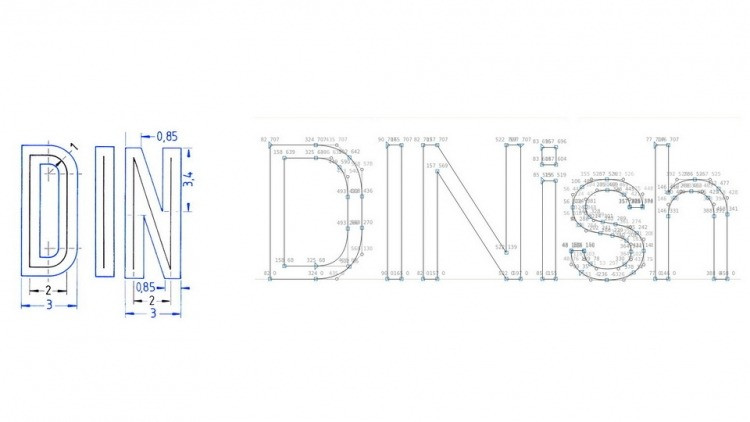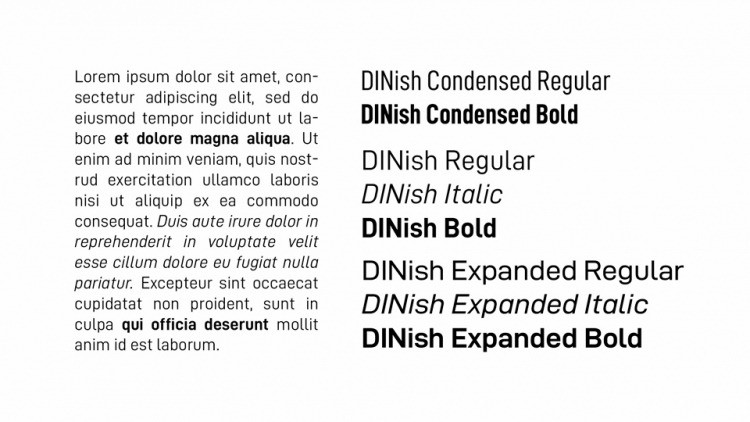
DINish sans serif Font
This is a high-contrast sans serif typeface that comes in multiple styles / weights, derived from Altinn-DIN, which in turn is based on Datto’s D-DIN.
The name DINish refers to the fact that the typeface looks like DIN 1451. Actually, a quick comparison with the standard as can be found in historic sources shows DINish to not be fully compatible with the standard, at least not as it was in 1936. That is probably a good thing.
Reading the DIN 1451 standard with modern eyes reveals that it is more like a lettering standard for technical drawings than a typeface specification. The standard has no concern for how the brain processes shapes and whitespace. DINish was drawn with the human reader in mind, with subtle but loving exceptions to the rigid grid-and-ruler specification from the Deutsche Norm. That said, it retains DIN’s clarity and as such it is a typeface with a purpose, if not a mission.
DINish sans serif Font is available in three widths: standard, Condensed and Expanded. The standard width roughly matches DIN Mittelschrift, the Condensed width roughly matches the DIN Engschrift, and Expanded is like DIN Breitschrift (rarely used in Germany, actually). There are Regular, Bold and Italic variants; the only combination that is missing is Condensed Italic.